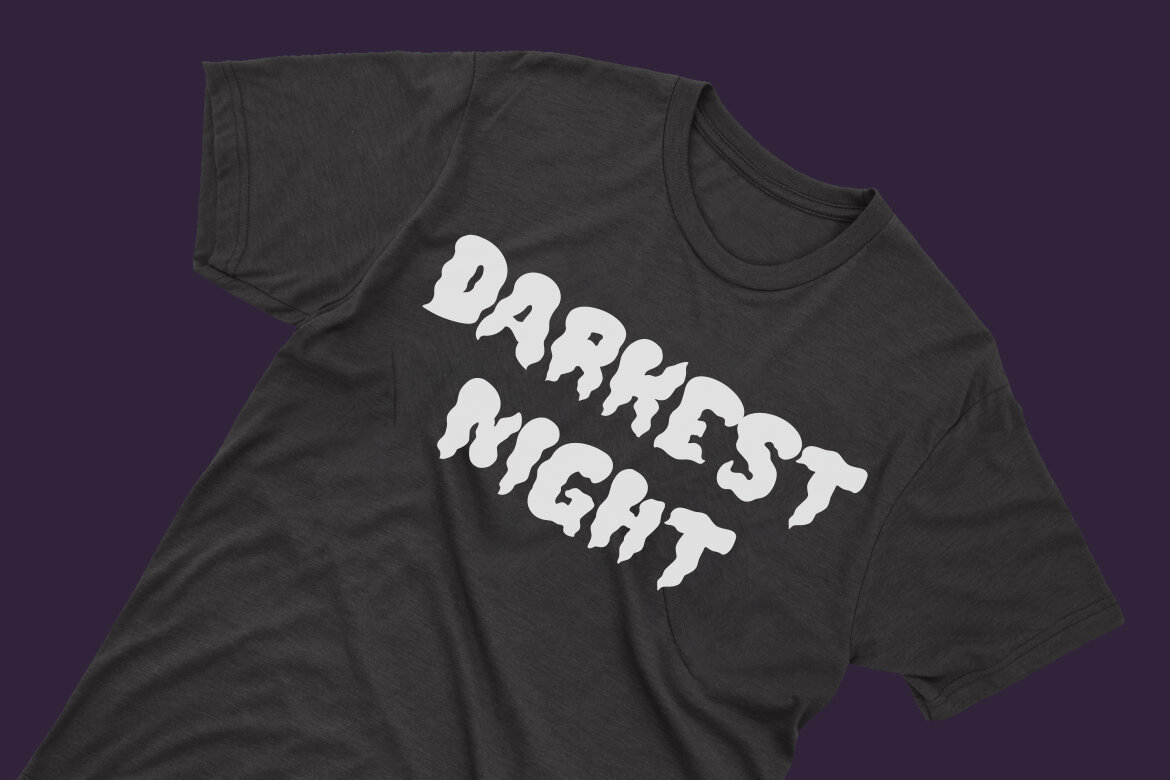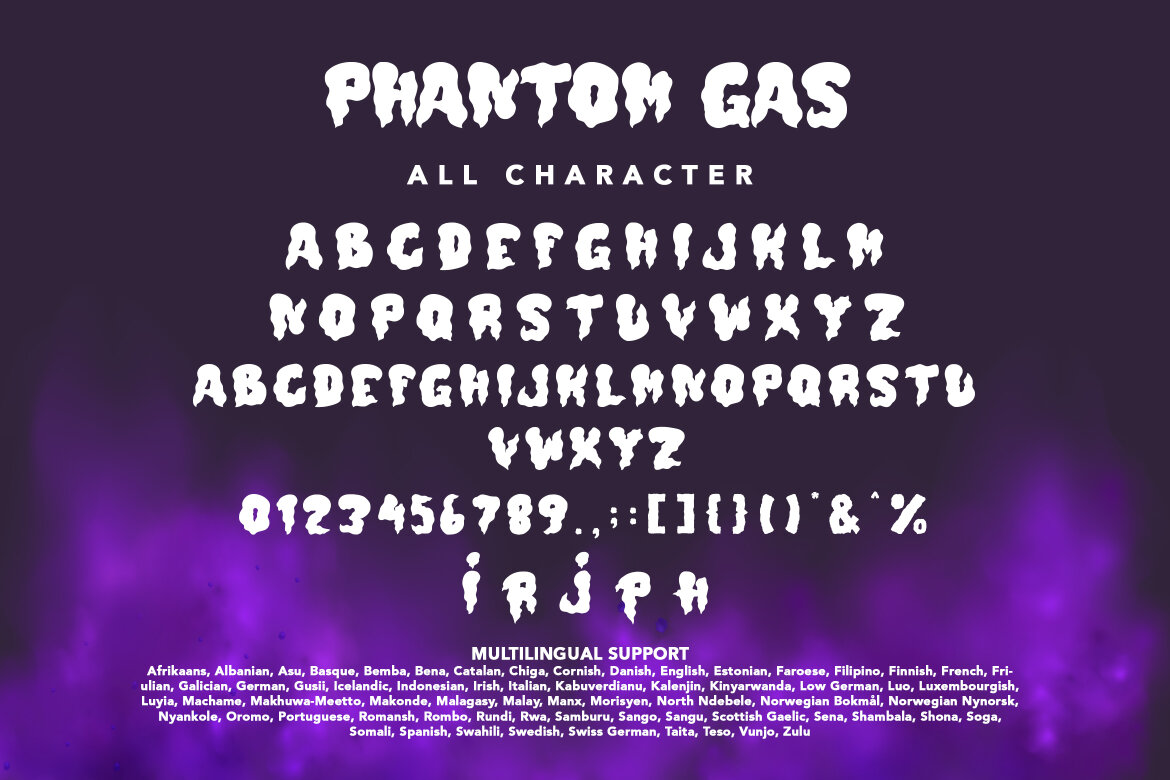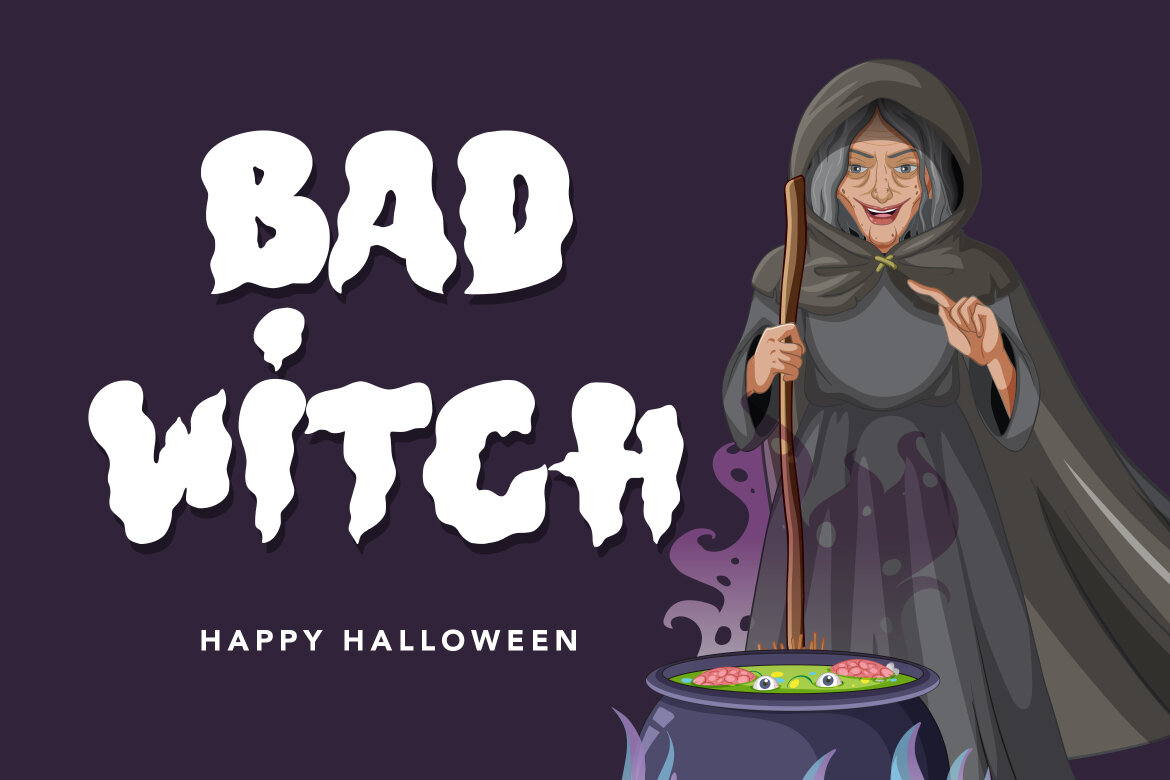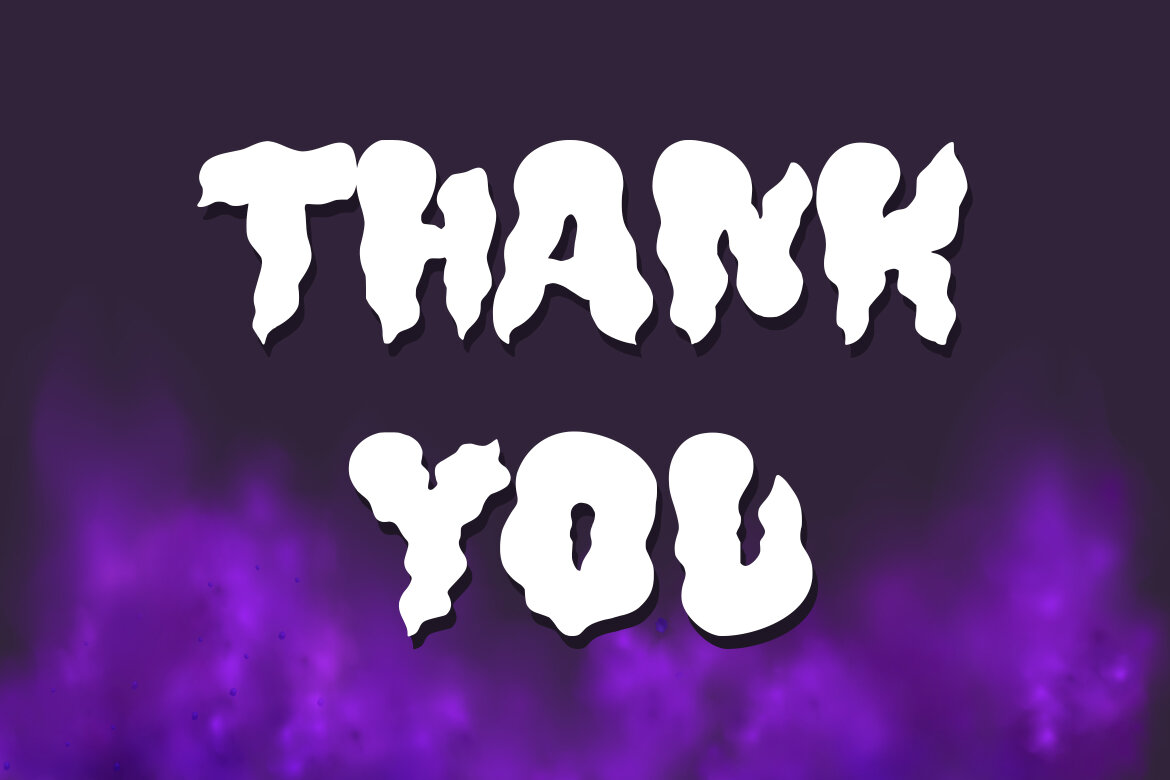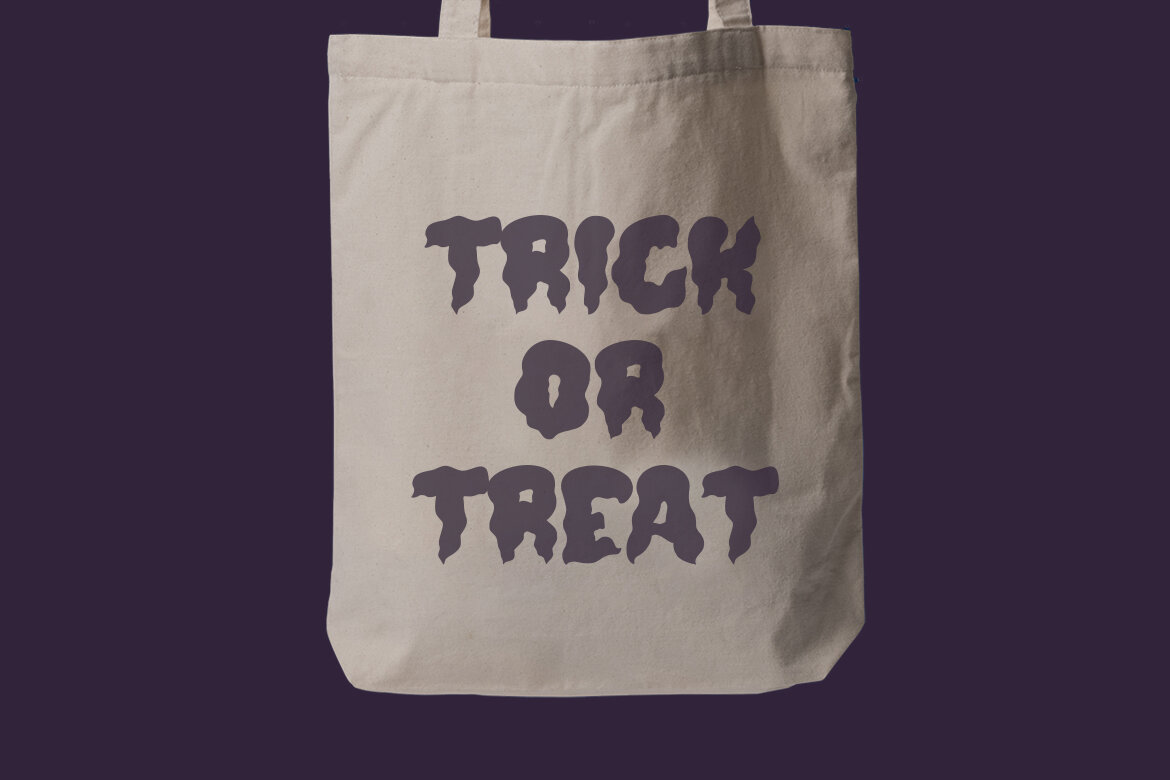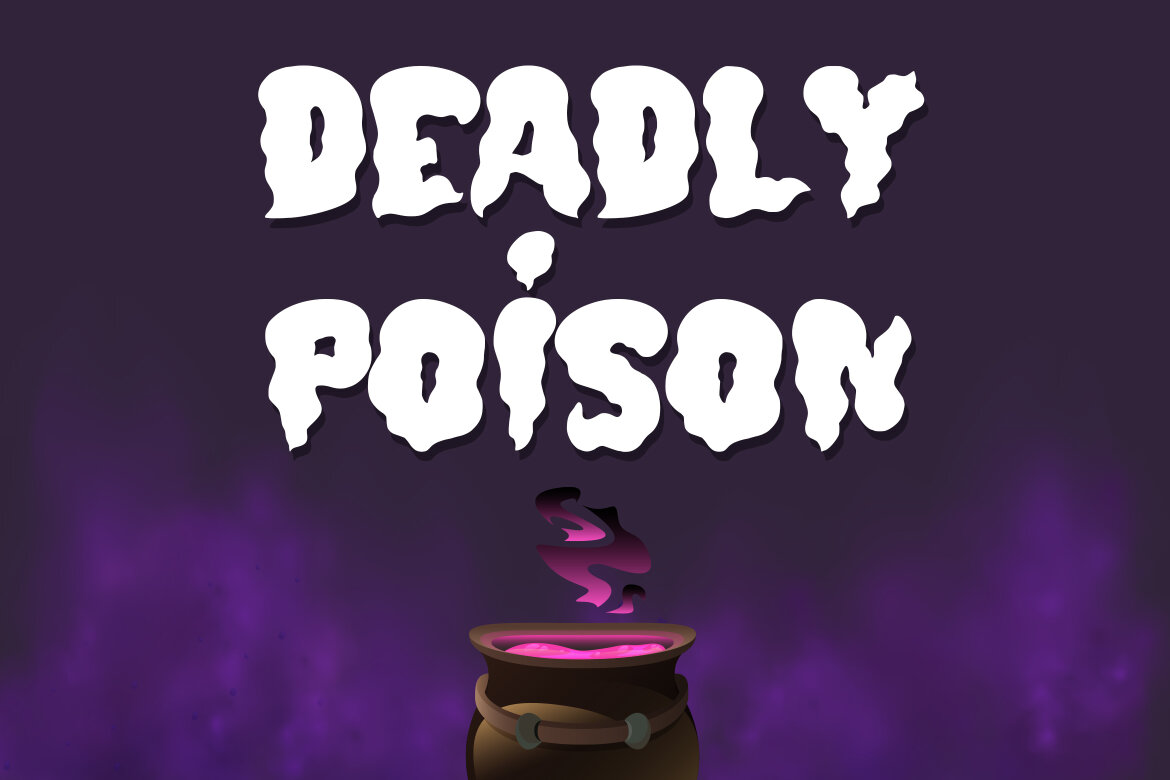
Phantom Gas Free Font
Phantom Gas
Is a comic display font with distinctive handwritten characters perfect for branding projects, logos, clothing designs, media posts, advertisements, product packaging, product designs, labels, photography, watermarks, invitations, stationery, and any project who need handwritten dishes.
• number
• punctuation
• symbol